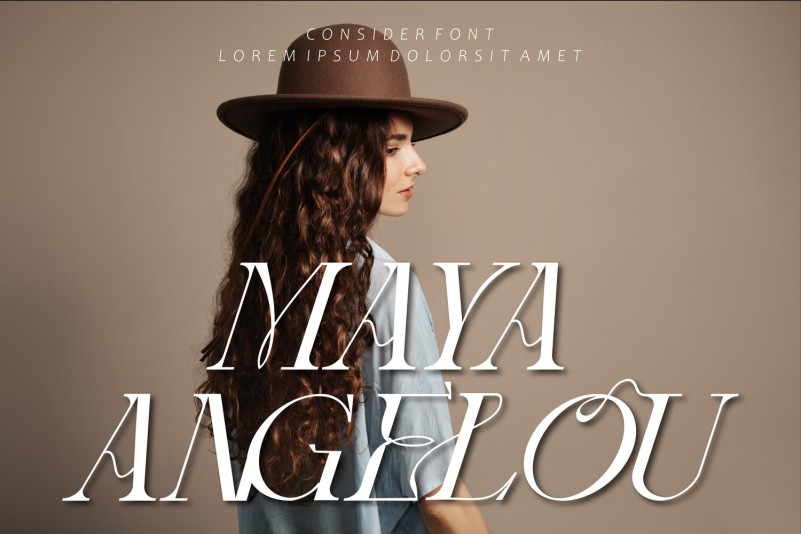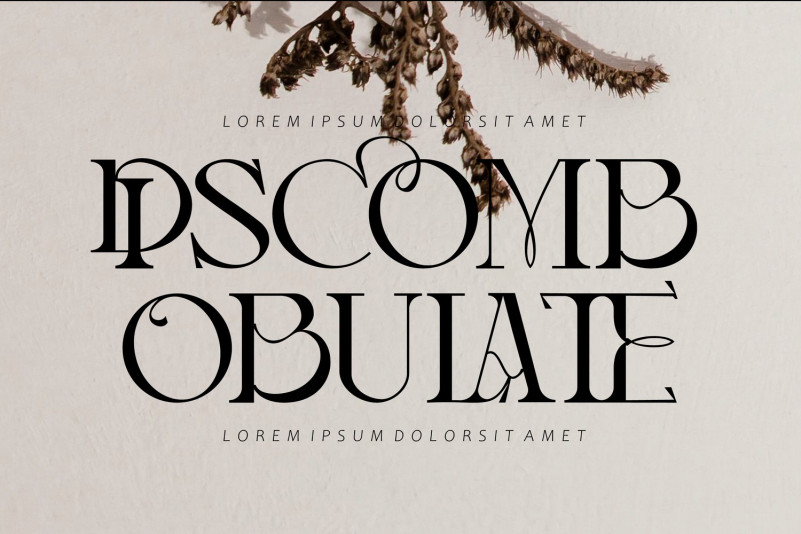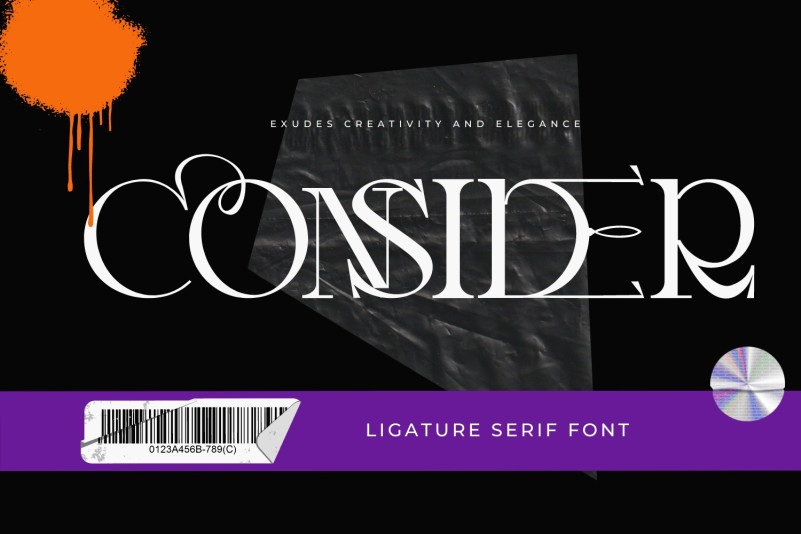
Consider Font
Consider Font is an exquisite ligature serif font that exudes creativity and elegance. With over 100 meticulously crafted ligatures, this font is the perfect choice for designers looking to elevate their projects to new heights. Looking to add a touch of refinement to your designs? Whether you’re creating a logo, designing packaging, or working on a book cover, this font will help elevate your work to the next level.
To make it look more unique, here we prepared some ligatures:
AC AD AL AN AR AS AT AU AV BE CA CE CH CO CT DE DI EA EC ED EE EL EM EN EP ER ES ET FE FO FR GE HA HE HI HO IC IE IL IN IO IR IS IT JU KE LA LE LI LL LO LY MA ME MI NC ND NE NG NO NT NS OC OF OM ON OO OP OR OT OU OW PA PR RA RD RE RI RO RS RT SE SH SI SO SS ST TA TE TH TI TO TR TT UM UN UR VE WI WO